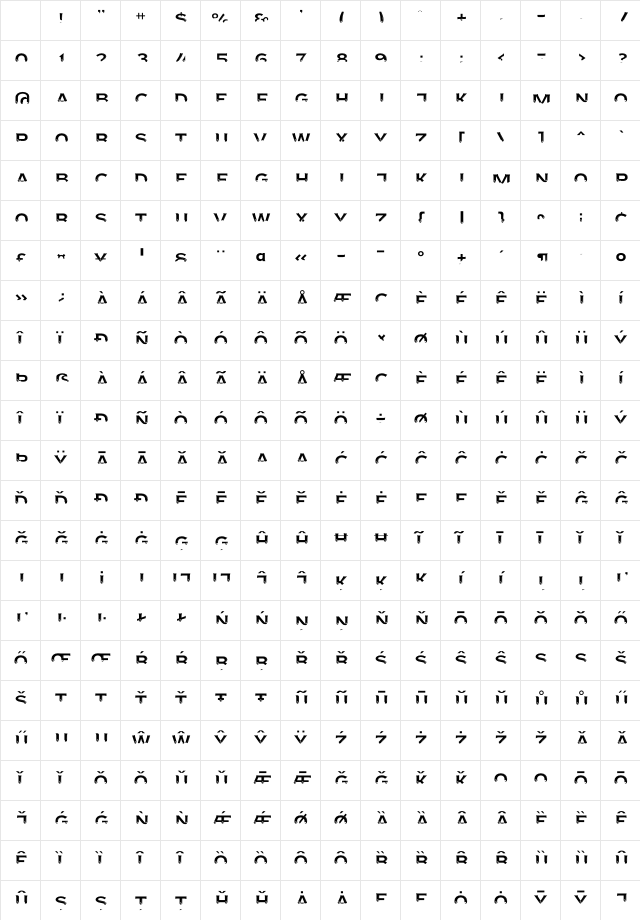
AgreloyInT3 Regular Free Font
AgreloyInT3 Regular
Foundry: gluk
Designer: gluk
Design Context for AgreloyInT3
AgreloyInT3 is a composed and adaptable typeface that performs quietly and consistently across a wide range of design contexts.